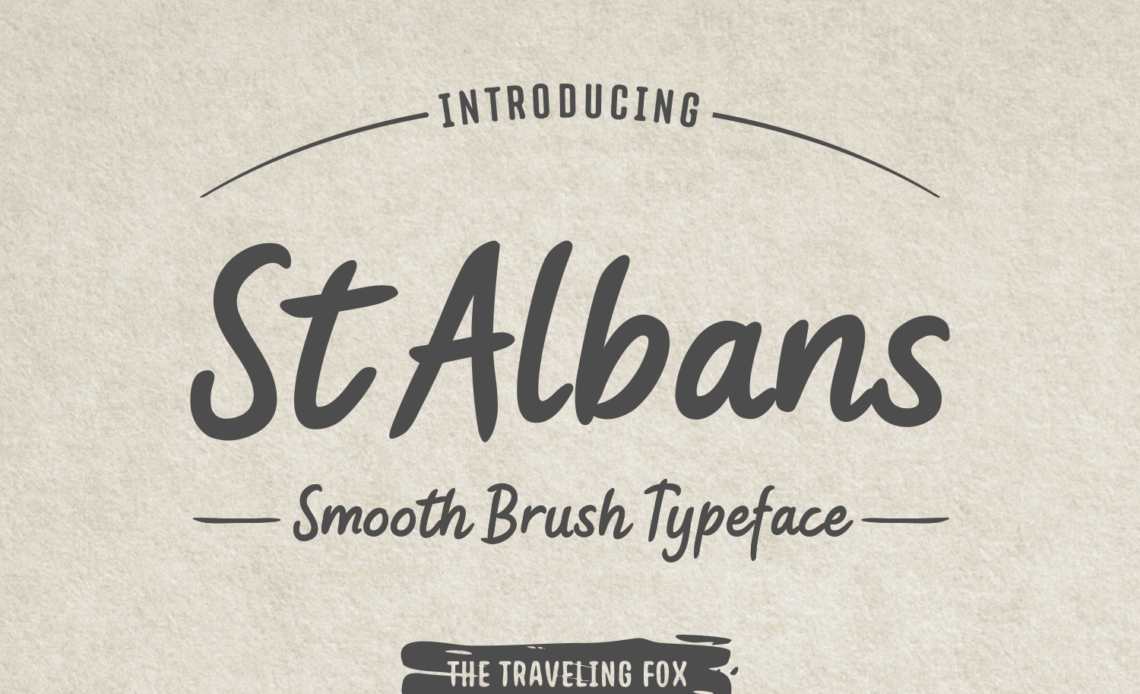
In the realm of digital expression, where words dance across screens and pixels weave tales, there exists a font that transcends the ordinary – St Albans, a brush typeface born from the heart of The Traveling Fox.
St Albans is not just a collection of letters and symbols; it's an artistic odyssey, a visual symphony that captivates the senses and ignites the imagination. With its delicate strokes and carefully crafted curves, this font exudes a timeless elegance that whispers of stories untold.
Step into a world of boundless creativity with St Albans, where your words take flight on wings of artistry. Whether you're a passionate writer, a visionary designer, or an entrepreneur seeking to make a lasting impression, this font is your muse, your faithful companion on the path to greatness.
Immerse yourself in the allure of St Albans, let its graceful lines flow through your designs, and watch as your creations transform into masterpieces that command attention and inspire awe. From heartfelt letters to captivating marketing campaigns, St Albans elevates your words, making them dance off the page with a life of their own.
Unleash the power of St Albans today and embark on a journey of self-expression like never before. Allow your creativity to flourish, your imagination to soar, and your words to resonate with a depth and beauty that will leave an indelible mark on the world.